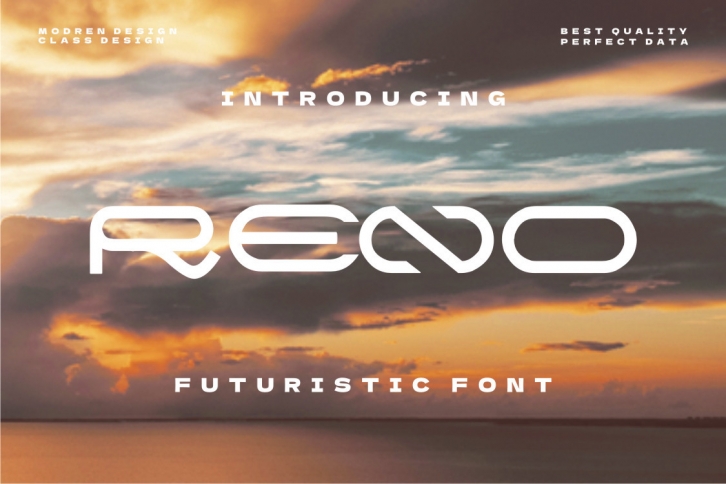
Reno is a cool, bold and futuristic display font. This font is ideal for writing web designs, business cards, or pretty much anything else that requires a techno touch.